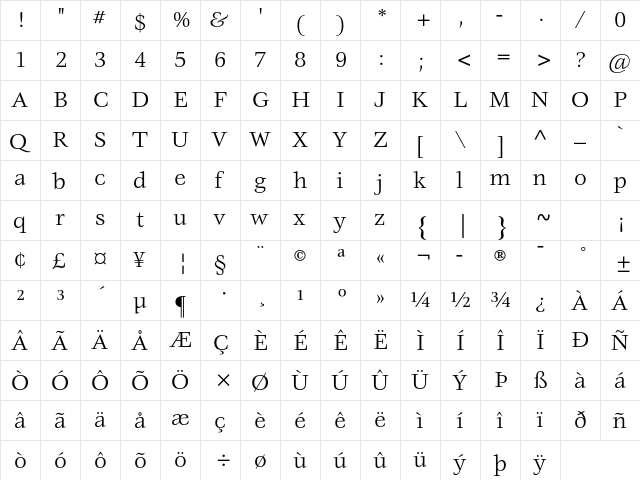
ITC Veljovic Std Book
| Designer | Jovica Veljovic |
Design Context for ITC Veljovic Std Typeface
ITC Veljovic Std is a composed and adaptable typeface that performs quietly and consistently across a wide range of design contexts.